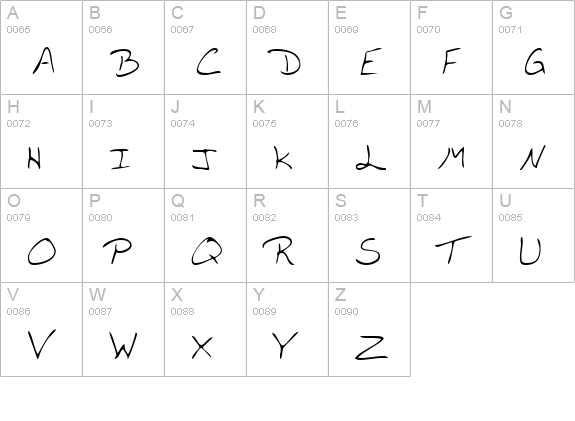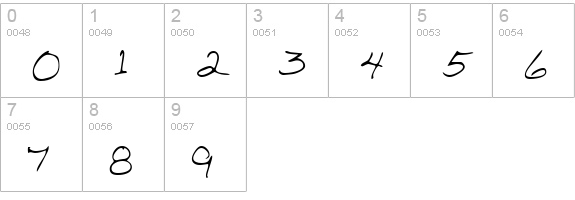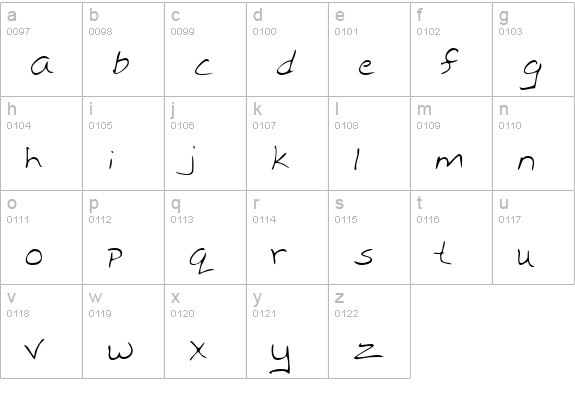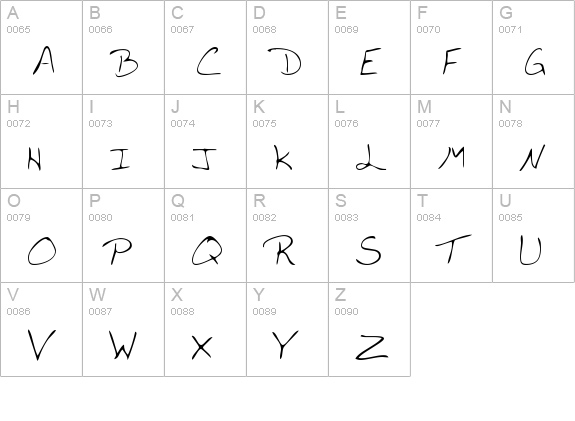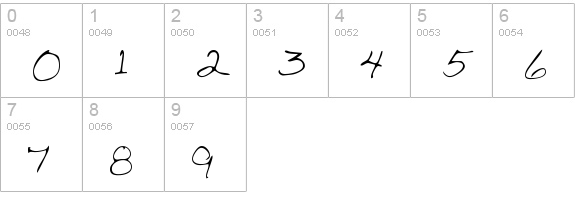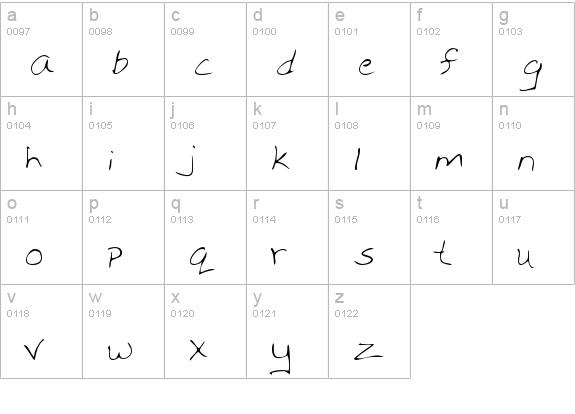
MonicasHand Regular is the standard, neutral variant in the MonicasHand typeface family \xE2\x80\x94 well suited to general body text, paragraphs, and standard typographic work.
MonicasHand Regular font is a charming and elegant typeface that exudes a sense of warmth and sophistication. Its flowing strokes and delicate curves give any text a graceful and artistic touch. Perfect for adding a personal and stylish flair to invitations, greeting cards, and other creative projects, MonicasHand Regular font is sure to impress with its timeless appeal. The best part is that MonicasHand Regular font is completely free to download at FontsMarket.com. This means you can easily enhance your designs with this beautiful font without any cost. Don't miss out on this opportunity to elevate your projects with the beauty and elegance of MonicasHand Regular font. Download it today and let your creativity shine!